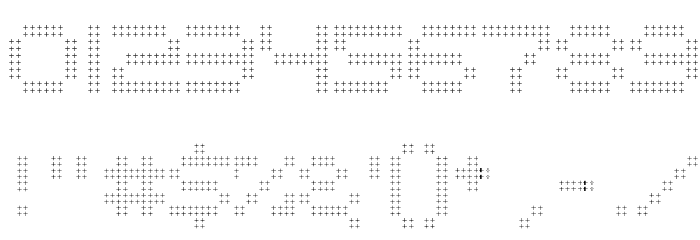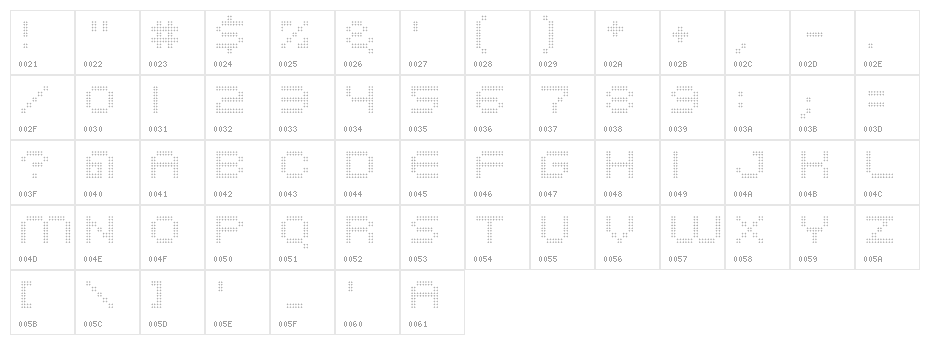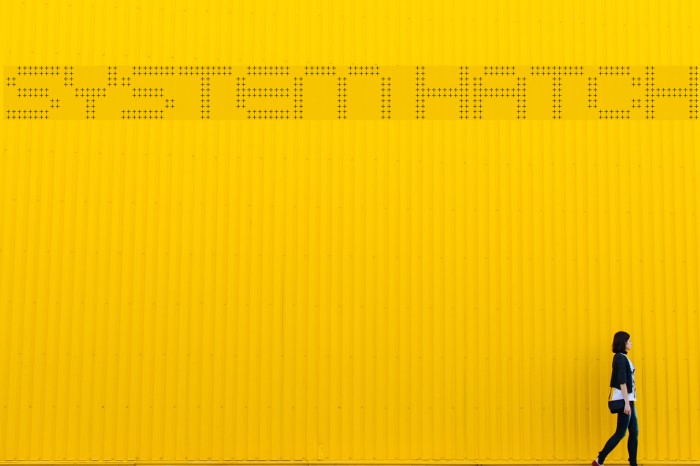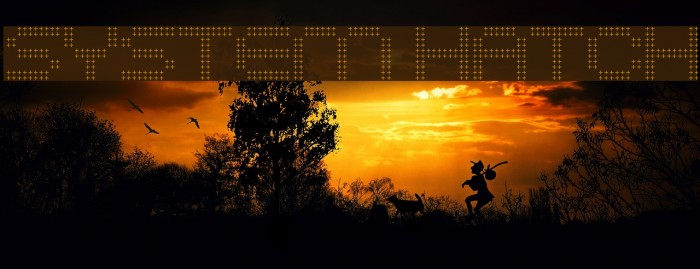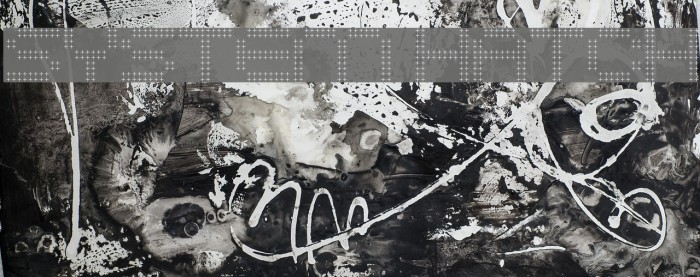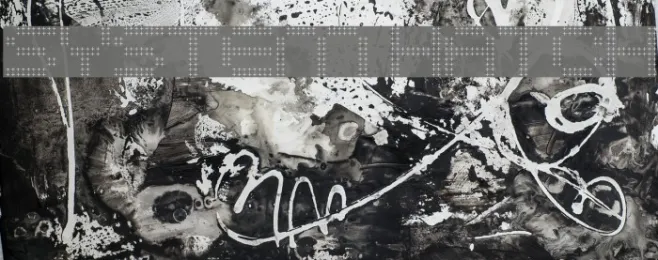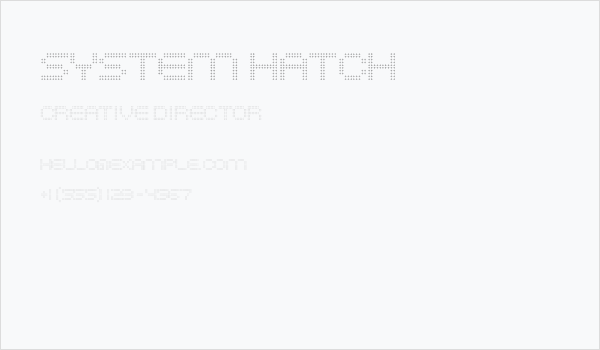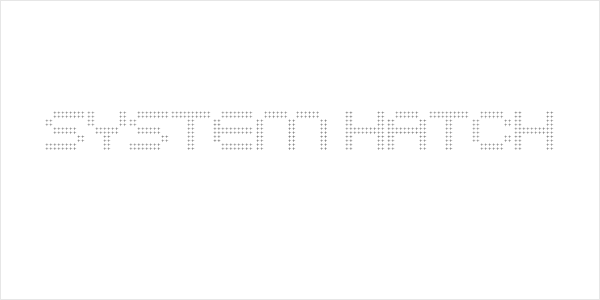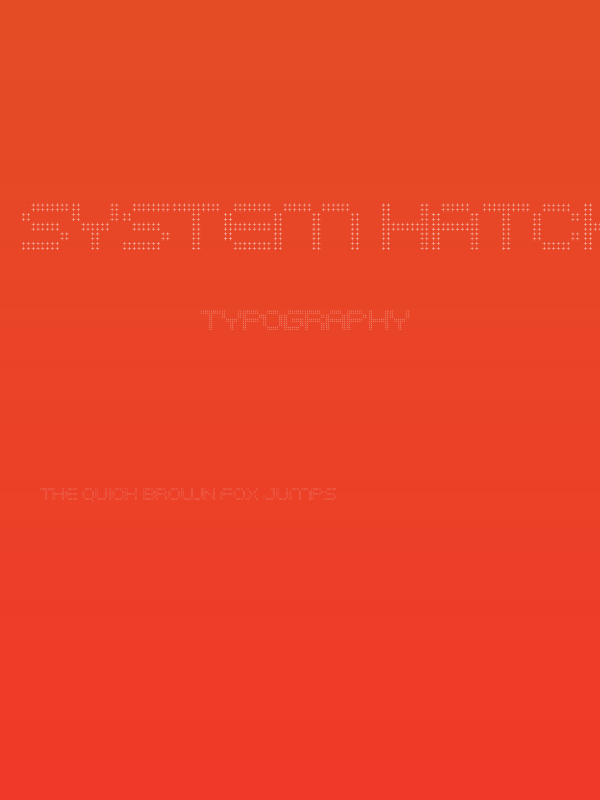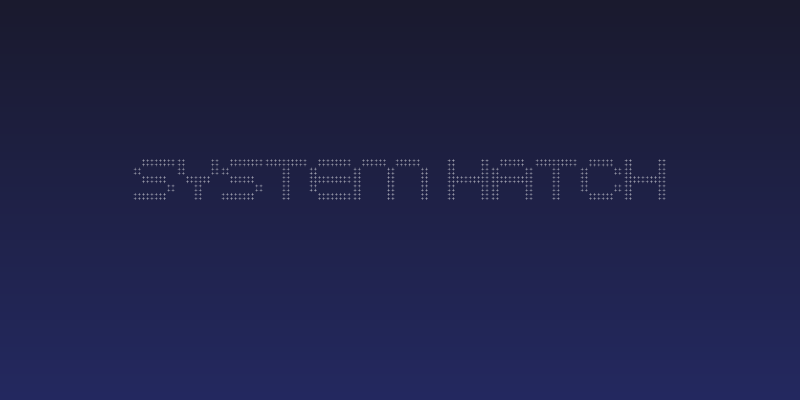
SYSTEM HATCH Font
SYSTEM HATCH Description
This font features a unique dot matrix design, reminiscent of retro digital displays. Each character is composed of a grid of small dots, creating a pixelated effect that evokes a sense of nostalgia for early computer screens and digital clocks. The uniformity of the dots across all characters ensures a consistent and cohesive look, while the spacing between the dots allows for clear readability. This font is ideal for projects that aim to capture a vintage or tech-inspired aesthetic, offering a distinctive style that stands out in digital and print media.
| Proposed Projects | Ideal for digital displays, retro-themed designs, tech-inspired branding, and creative posters. |